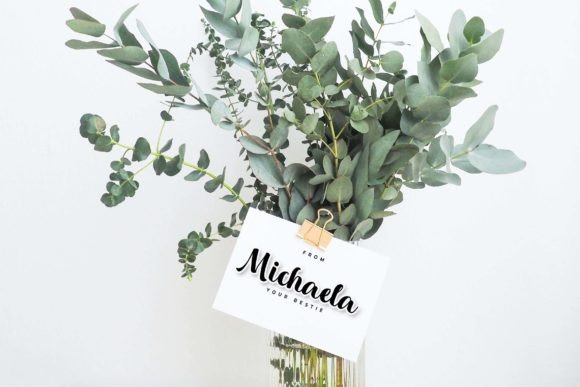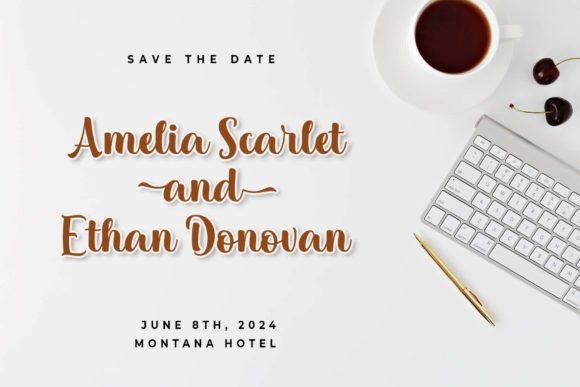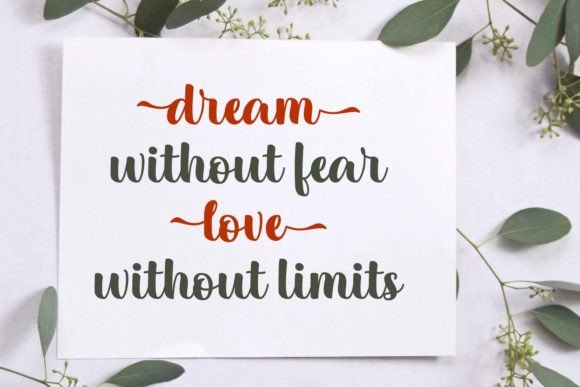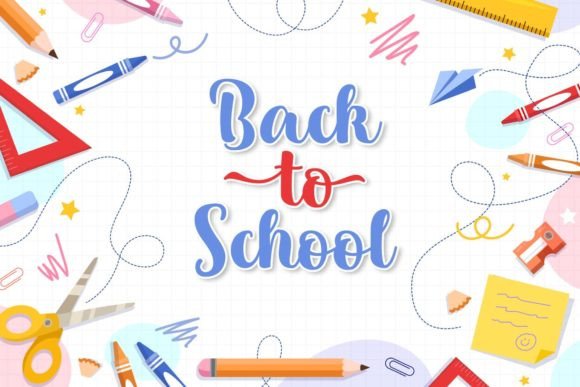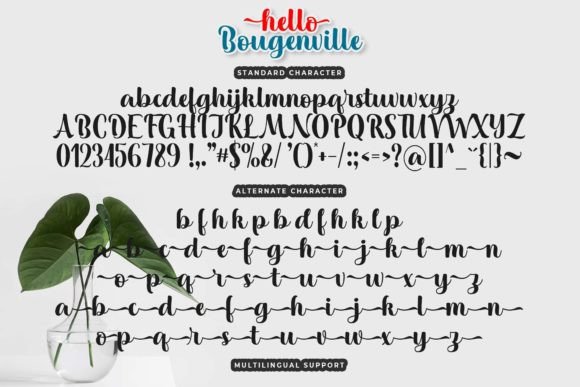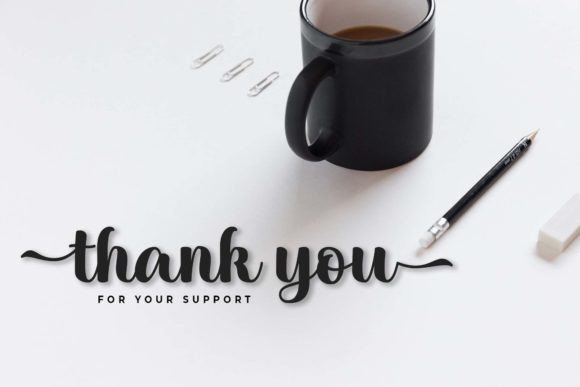
Hello Bougenville Font: Add a Romantic Touch to Your Creations
Are you looking for a font that can add a touch of elegance and romance to your designs? Look no further than Hello Bougenville, a stylish and delicate font perfect for a wide range of applications. From greeting cards to headlines, this beautiful font is sure to make your creations stand out.
What is Hello Bougenville Font?
Hello Bougenville is a modern script font that features a unique and elegant design. Its delicate lines and curves make it perfect for creating beautiful and romantic designs. The font is suitable for a wide spectrum of applications, including:
- Greeting cards
- Headlines
- Logos
- Branding materials
- Stationery
Key Features of Hello Bougenville Font
Hello Bougenville font has several key features that make it a great choice for designers and crafters. Some of its notable features include:
- PUA Encoding: Hello Bougenville is PUA (Private Use Area) encoded, which means you can access all of the glyphs and ligatures with ease. This makes it easy to use the font in your designs and ensures that you can get the most out of its features.
- Stylish and Delicate Design: The font features a stylish and delicate design that is perfect for creating romantic and elegant designs.
- Wide Range of Applications: Hello Bougenville is suitable for a wide range of applications, from greeting cards to headlines, making it a versatile font that can be used in many different contexts.
Why Choose Hello Bougenville Font?
There are many reasons why you should choose Hello Bougenville font for your designs. Here are just a few:
- Unique and Elegant Design: Hello Bougenville features a unique and elegant design that will make your designs stand out from the crowd.
- Easy to Use: The font is PUA encoded, making it easy to access all of the glyphs and ligatures.
- Versatile: Hello Bougenville is suitable for a wide range of applications, making it a great choice for designers and crafters who need a font that can be used in many different contexts.
- Adds a Romantic Touch: The font is perfect for adding a romantic touch to your designs, making it ideal for greeting cards, wedding invitations, and other romantic designs.
Tips and Tricks for Using Hello Bougenville Font
Here are some tips and tricks for using Hello Bougenville font:
- Use it for Headlines: Hello Bougenville is perfect for headlines, adding a touch of elegance and romance to your designs.
- Pair it with Other Fonts: The font pairs well with other fonts, making it easy to create beautiful and unique designs.
- Experiment with Different Sizes: Hello Bougenville looks great in a variety of sizes, so don’t be afraid to experiment and find the perfect size for your design.
Hello Bougenville font is a beautiful and elegant font that is perfect for adding a romantic touch to your designs. With its stylish and delicate design, PUA encoding, and wide range of applications, it’s a great choice for designers and crafters. Whether you’re creating greeting cards, headlines, or other designs, Hello Bougenville is sure to make your creations stand out.